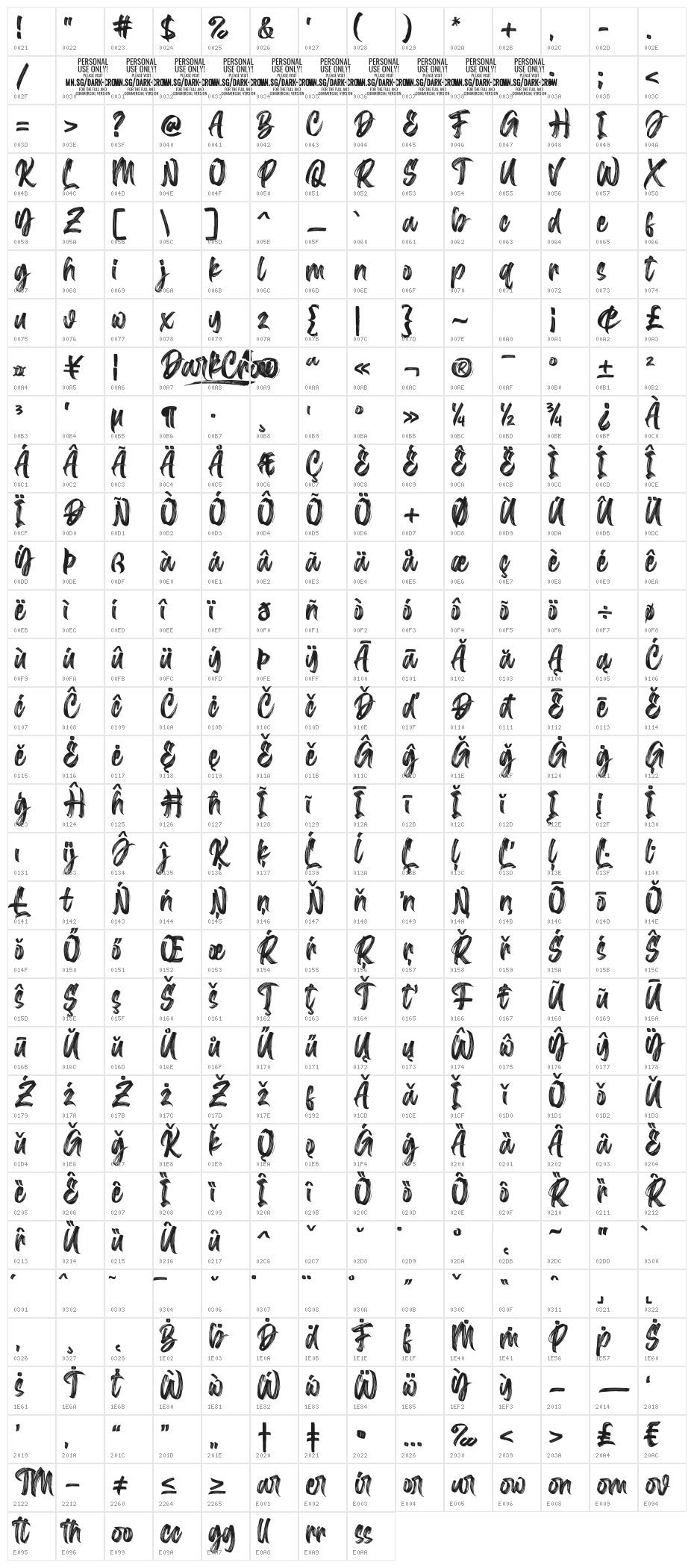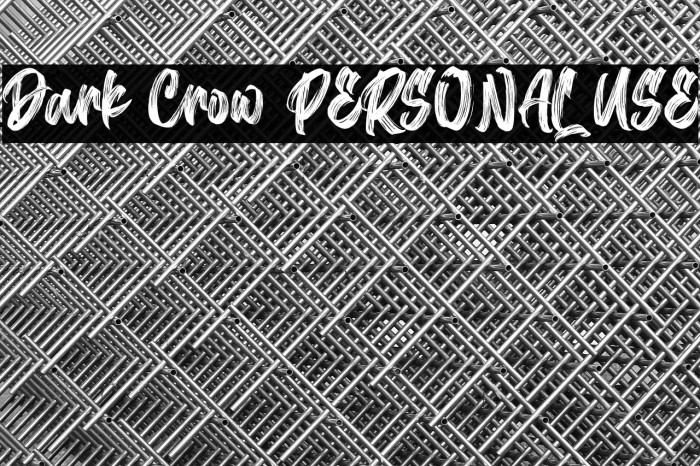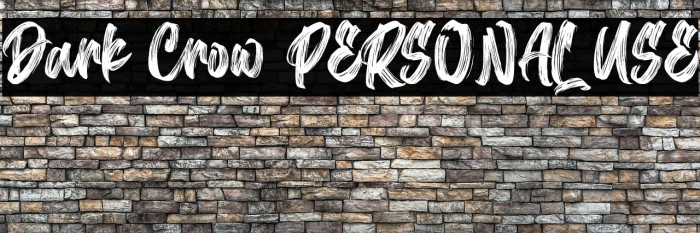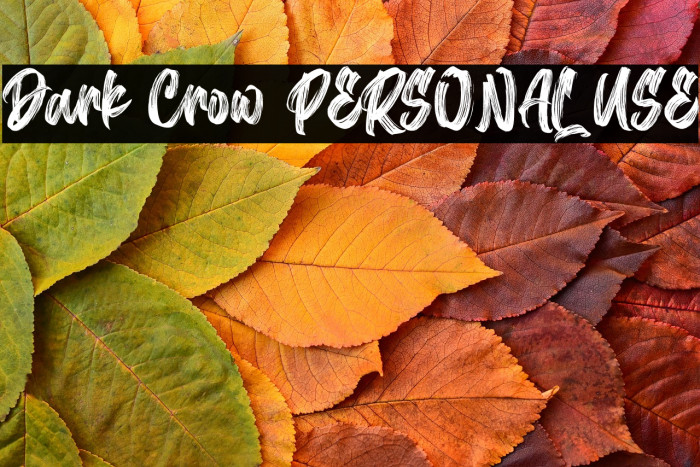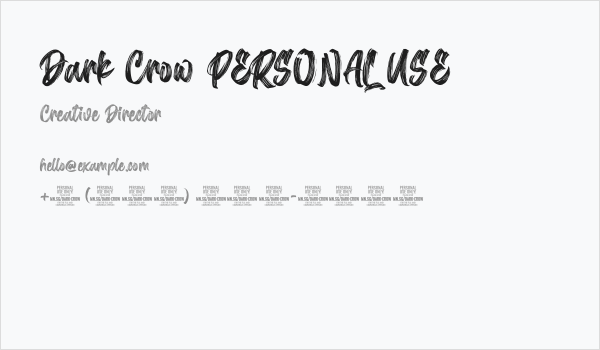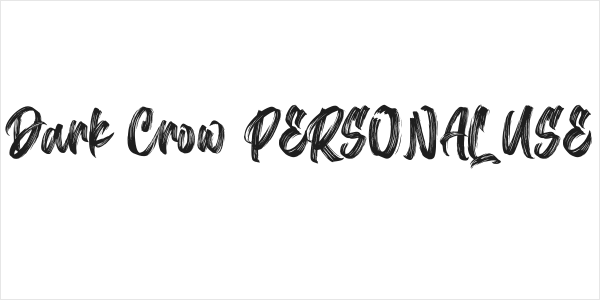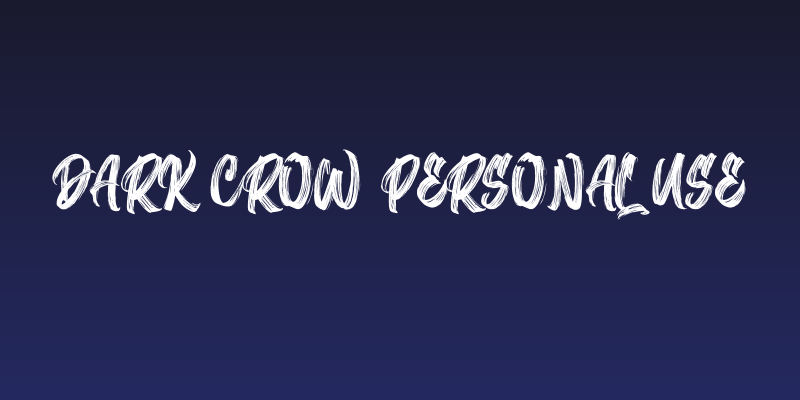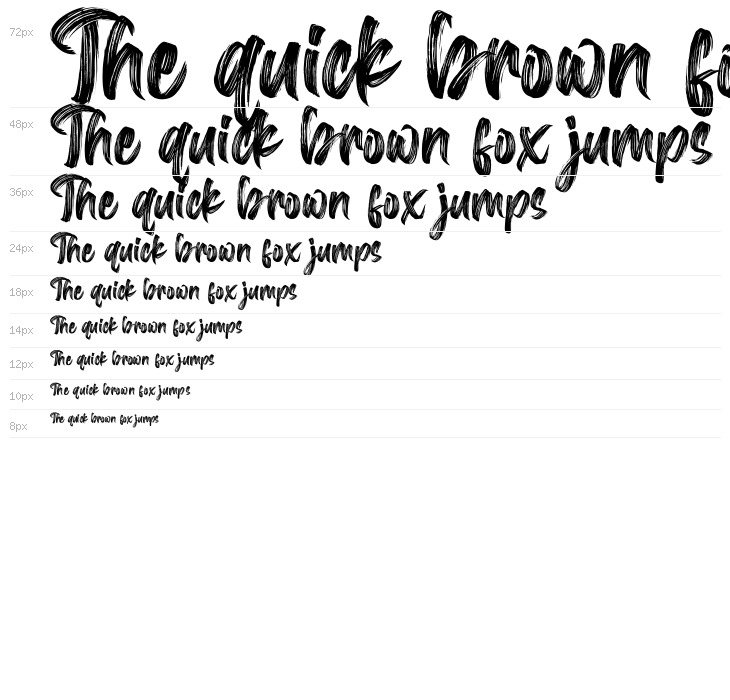
Dark Crow PERSONAL USE Font
Dark Crow PERSONAL USE Description
This font features a bold, expressive brush style with dynamic strokes and a hand-painted appearance. The letters are characterized by their thick, textured lines and a sense of movement, giving them a lively and energetic feel. The uppercase and lowercase letters maintain a consistent style, with some letters featuring unique flourishes and swashes. The font includes a full set of uppercase and lowercase letters, numbers, and a variety of special characters, making it versatile for creative projects. Its artistic and raw aesthetic makes it suitable for designs that require a personal touch or an edgy vibe.